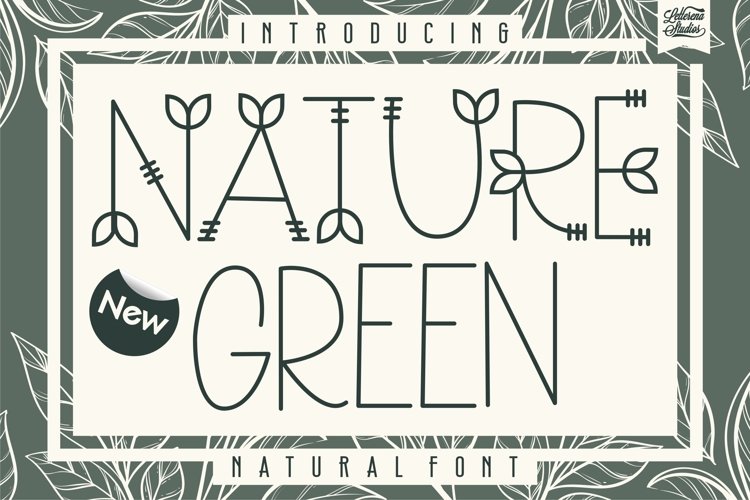
Nature Green - Nature Sans Serif Font, from Letterena, is a Beautiful sans serif font, suitable for any projects such as: logos, branding projects, homeware designs, product packaging, mugs, quotes, posters, shopping bags, t-shirts, book covers, name card, invitation cards, greeting cards, label, photography, watermark, special events, and all your other lovely projects that need a beautiful sans serif taste.